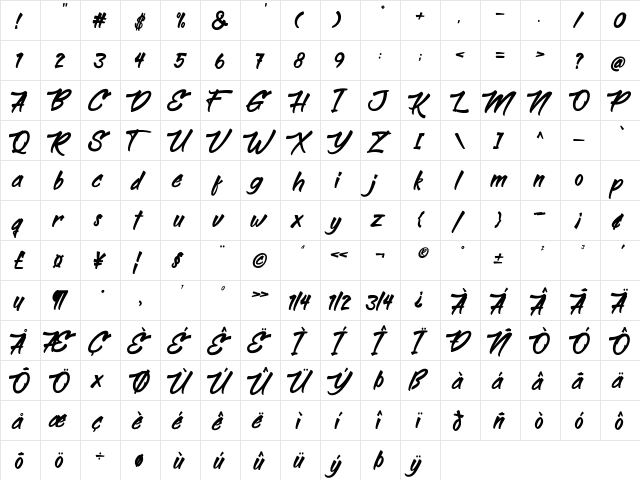
Bethsy Bethsy
Design Context for Bethsy Typeface
Bethsy is a composed and adaptable typeface that performs quietly and consistently across a wide range of design contexts.
Pro Tip: Use Bethsy in both headline and body roles to test its range before committing to a single application.